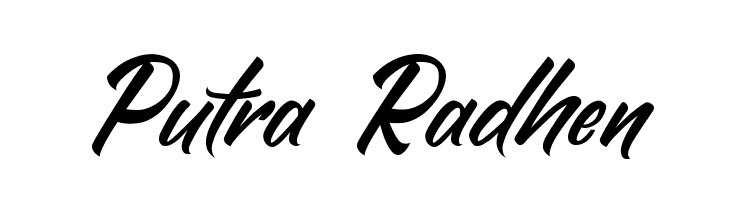
A playful, handwritten font with a casual and friendly vibe.
A playful and elegant script font with flowing, connected letters.
A stylish and flowing script font with elegant, fluid letterforms.
A lively and flowing script font with elegant curves and interconnected letters.
A playful, flowing script font with a handwritten style.
A playful, hand-drawn font with rounded edges and a friendly style.
A fluid and graceful script font with a classic cursive style.
A lively and flowing script font with elegant, connected letterforms.
A cursive, handwritten-style font with elegant, flowing characters.
A casual and elegant handwritten font with smooth, flowing lines.